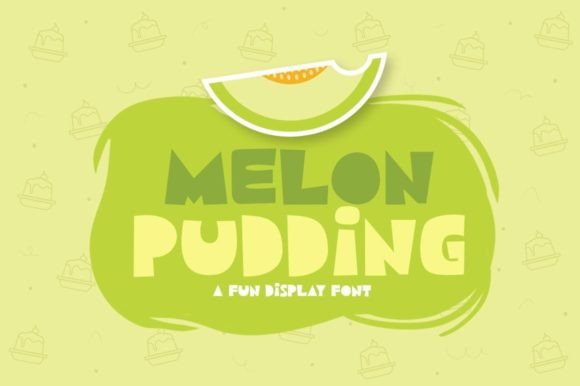
**Introducing Melon Pudding Font: The Ultimate Font for Whimsical Creations**
Embark on a delightful typographic adventure with our charming Melon Pudding Font, tailored to unleash your imagination and ignite your creativity. This enchanting display font dances with a playful spirit, inviting you to add a touch of childhood wonder to your designs. Its whimsical curves and bouncy strokes will instantly captivate the hearts of young and old alike.
Whether you're crafting enchanting children's stories, designing captivating games that spark laughter, or seeking a playful touch for any project, Melon Pudding Font is your perfect companion. Its versatility knows no bounds, making it the ideal choice for a wide range of projects.
Imagine your words coming to life with the cheerful exuberance of Melon Pudding Font. It's the perfect font for creating eye-catching posters that announce special events, designing vibrant packaging that delights customers, or adding a touch of whimsy to your social media posts.
**Key Features:**
* Fun and playful display font
* Perfect for children's designs, games, and whimsical creations
* Charming curves and bouncy strokes
* Versatile and suitable for a wide range of projects
**Benefits:**
* Captivates the hearts of young and old alike
* Adds a touch of childhood wonder to any design
* Unleashes your imagination and sparks creativity
* Perfect for creating eye-catching visuals that stand out